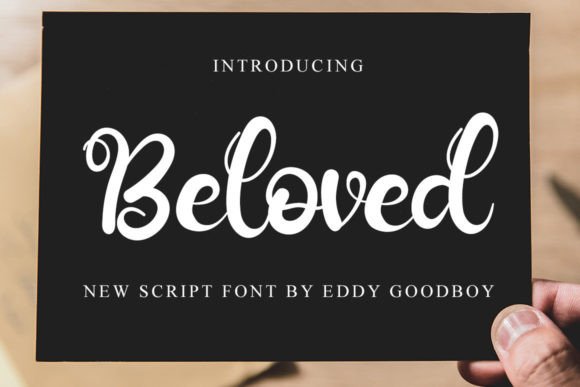
Discover the Charm of Beloved Font: Elevate Your Designs with Elegance and Joy
In the world of typography, a font can make all the difference in the aesthetic and feel of a design project. For those seeking a typeface that embodies freshness, cleanliness, and elegance, look no further than the Beloved Font. This beautiful and sweet font is poised to transform your designs, adding a touch of joy and sophistication that will set your work apart. Whether you’re working on formal or informal projects, Beloved Font is an excellent choice for designers and crafters aiming to infuse their creations with a unique charm.
The Essence of Beloved Font
Beloved Font is characterized by its fresh, clean, and elegant appearance. Its design elements strike a perfect balance between modernity and timelessness, making it versatile for a wide range of applications. From digital media and advertising to crafting and personal projects, this font’s adaptability knows no bounds. Its sweet and inviting demeanor ensures that your text communicates with warmth and approachability, engaging your audience on a more personal level.
One of the standout features of Beloved Font is its incredible versatility. It shines in various design contexts, effortlessly complementing different styles and themes. For formal projects, such as corporate branding, official announcements, or luxury product packaging, Beloved Font brings an air of sophistication and prestige. On the other hand, for informal projects like personal blogs, social media graphics, or handmade crafts, it injects a playful yet refined vibe that resonates with a broad audience.
Why Choose Beloved Font?
• Elegant and Refined: Adds a layer of sophistication to any design.
• Fresh and Clean: Ensures clarity and readability across various mediums.
• Joyful Touch: Brings a unique warmth and friendliness to your designs.
• Versatile: Suitable for both formal and informal projects.
• Easy to Read: Great for body text or headlines, ensuring your message is conveyed effectively.
Applications of Beloved Font
The applications of Beloved Font are vast and varied. Designers can use it in:
• Digital Marketing: Enhance your website, blog, or social media posts with a font that captures attention and retains it.
• Branding: Create a lasting impression with logos, brochures, or business cards that exude elegance.
• Crafting and DIY Projects: Add a professional touch to your handmade crafts, such as labels, cards, or packaging.
• Advertising: Stand out in print or digital ads with a font that’s both eye-catching and sophisticated.
Tips for Using Beloved Font Effectively
To maximize the impact of Beloved Font in your designs:
• Experiment with Sizes: Play with different font sizes to create visual hierarchy and emphasis.
• Pair it Wisely: Combine Beloved Font with complementary fonts for contrast and interest.
• Adjust Line Spacing: Ensure readability by optimizing line spacing for body text.
• Utilize Colors: Take advantage of font color options to match your brand’s palette or design theme.
Font Name Beloved Font
Author Eddygoodboy
Beloved Font is more than just a typeface; it’s a design companion that can elevate your projects with its elegance, freshness, and joyful charm. Whether you’re a professional designer or a crafting enthusiast, this font offers a simple yet powerful way to enhance your designs. By incorporating Beloved Font into your typography arsenal, you’ll be well on your way to creating visually stunning and emotionally engaging content that resonates with your audience.